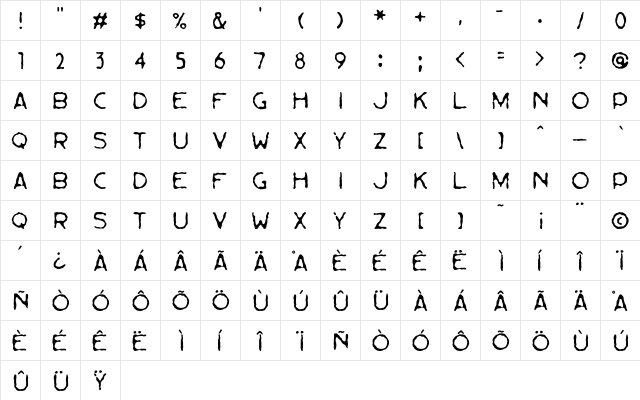
Bessie Regular
Design Context for Bessie Typeface
Bessie takes a measured approach to typography — its balanced proportions and neutral character make it a reliable workhorse for both digital and print work.
Pro Tip: Pair Bessie with a font of contrasting weight or personality to build a more expressive typographic hierarchy.